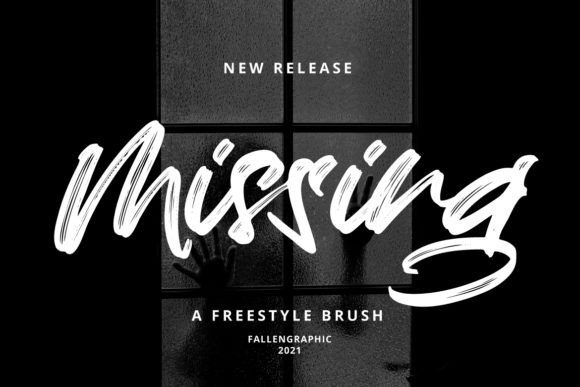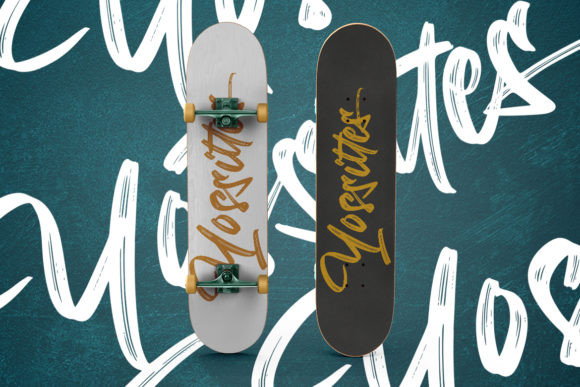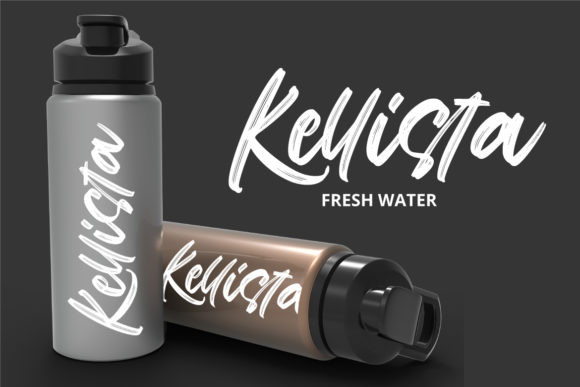
Missing Font
Missing is an amazing brush style handwritten font. The font will make your design more beautiful and powerful. Missing is suitable for any design like branding, quotes and much more.